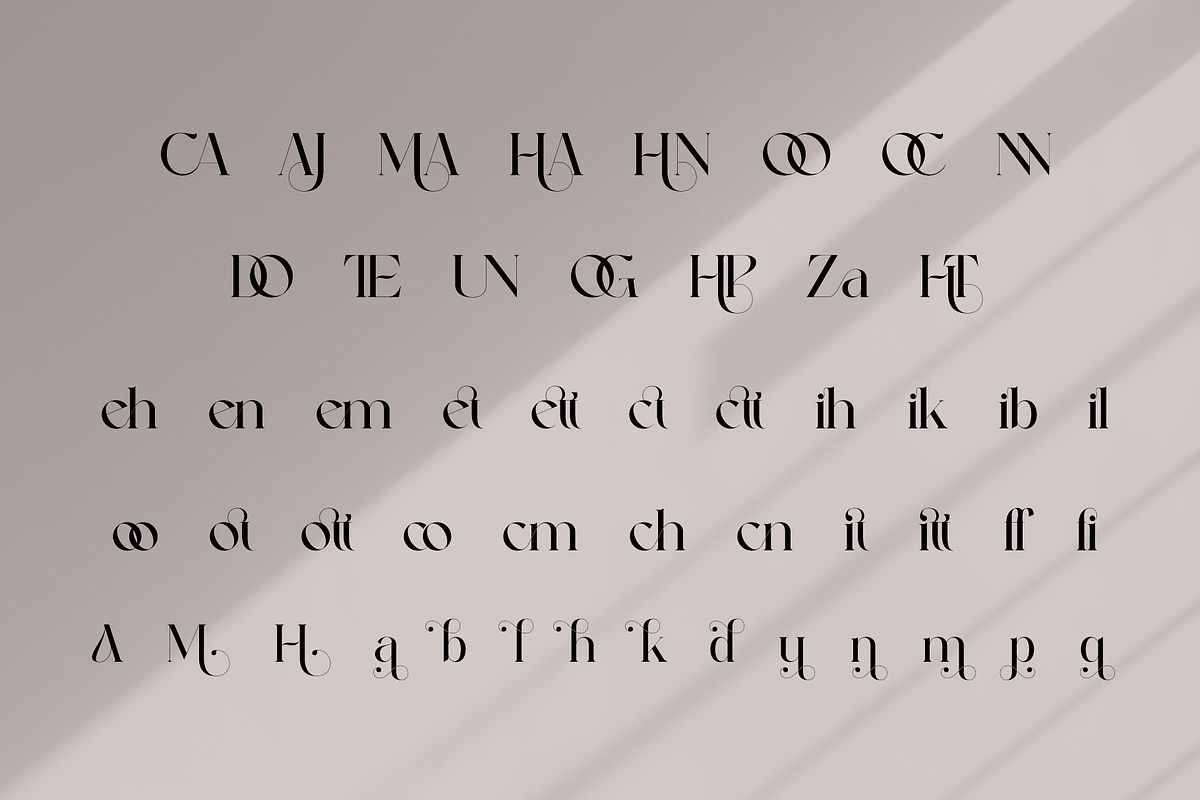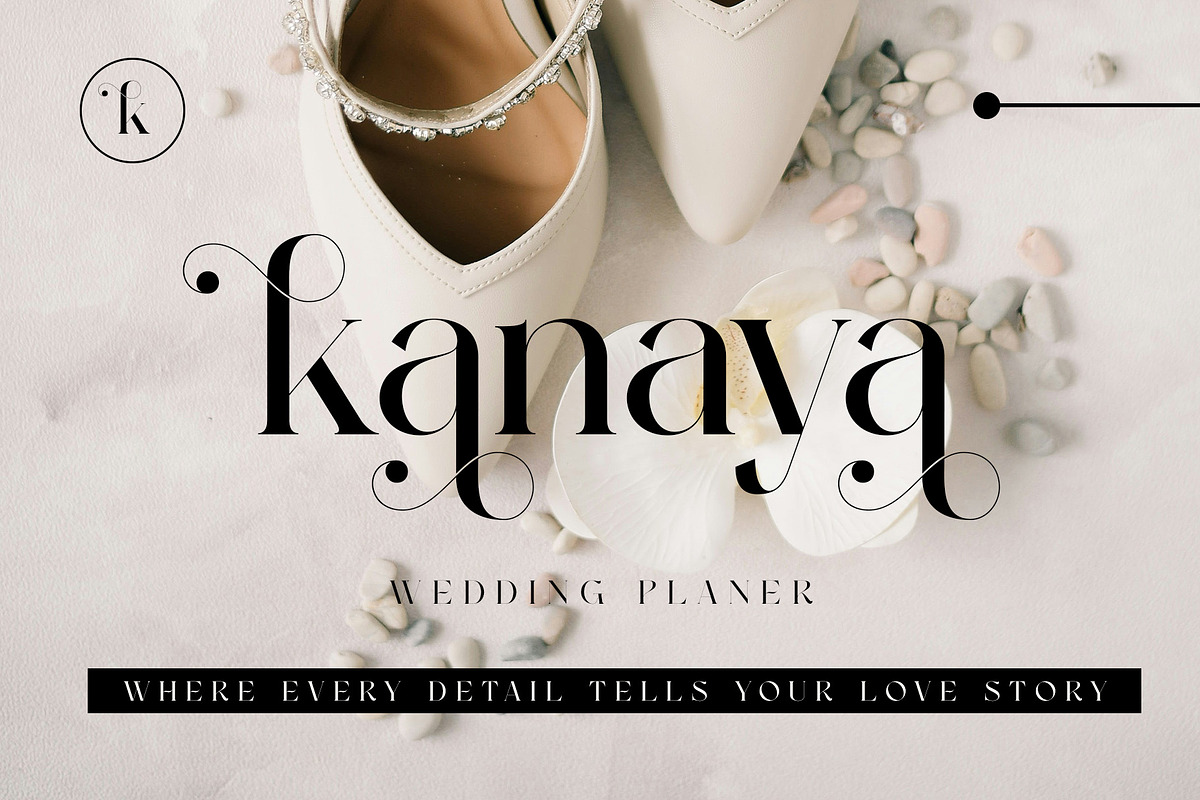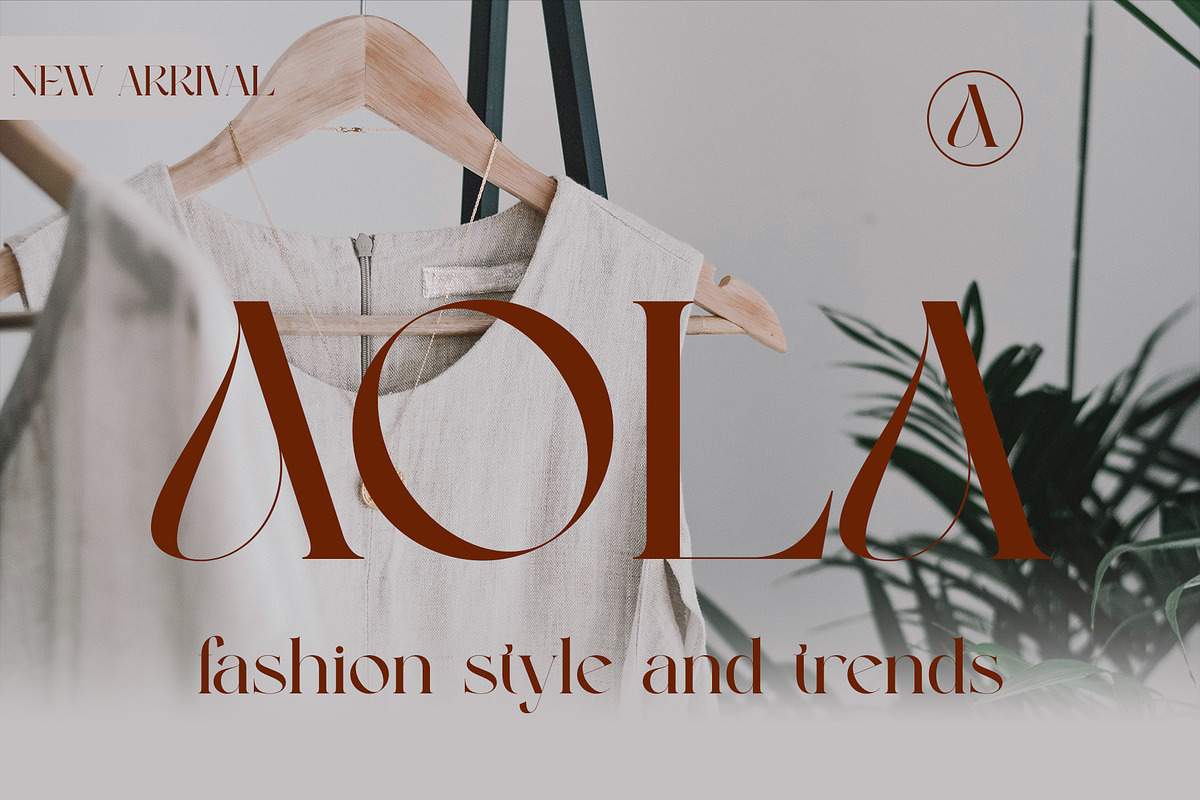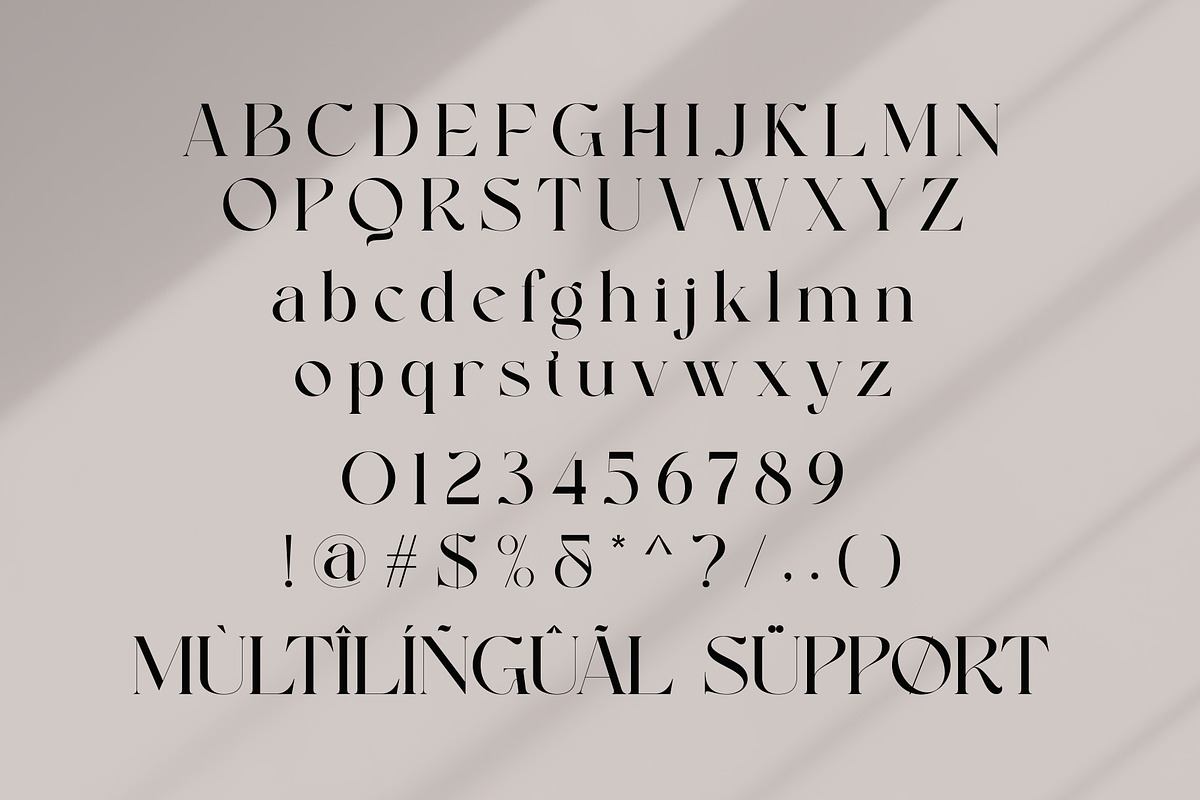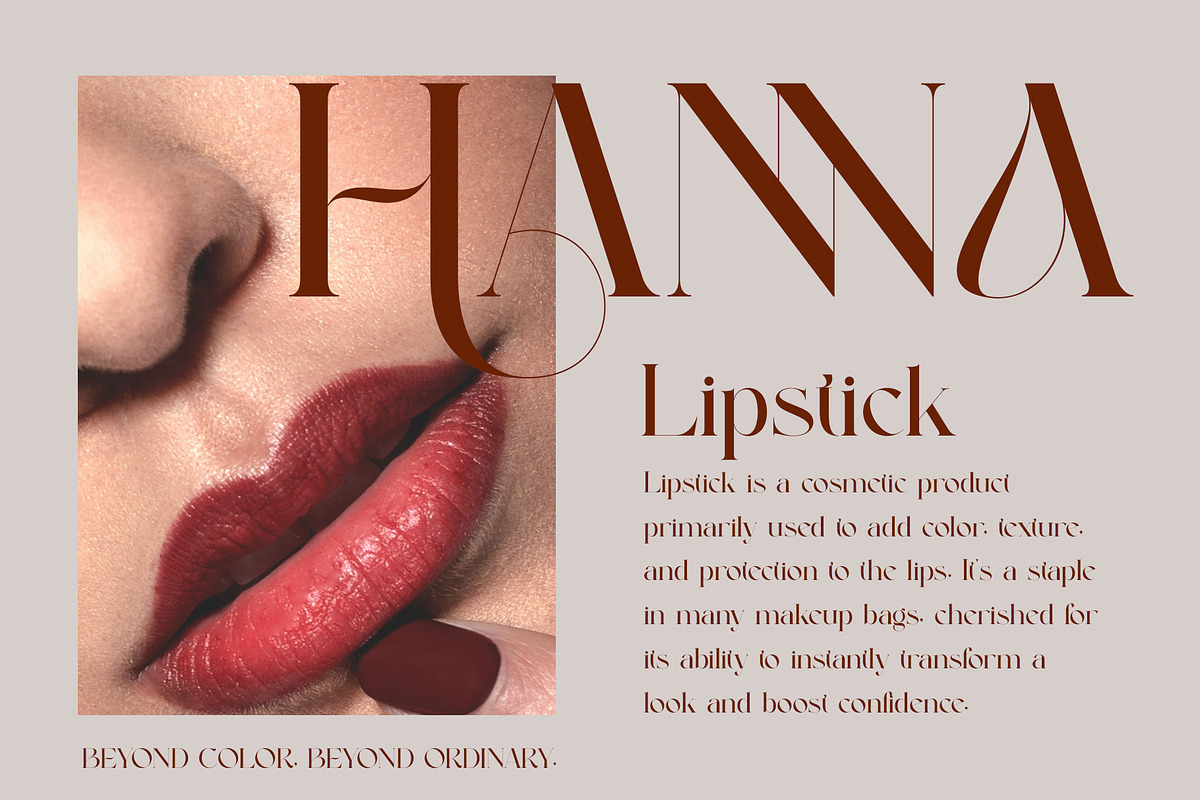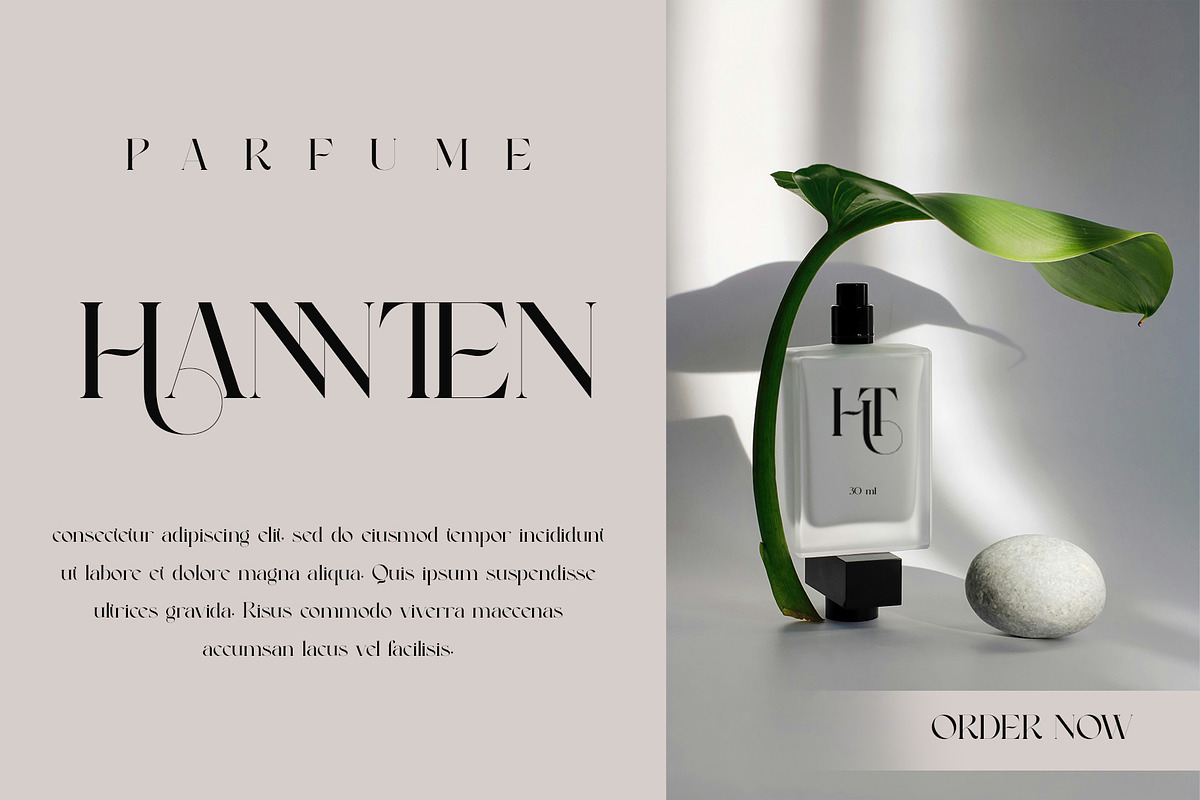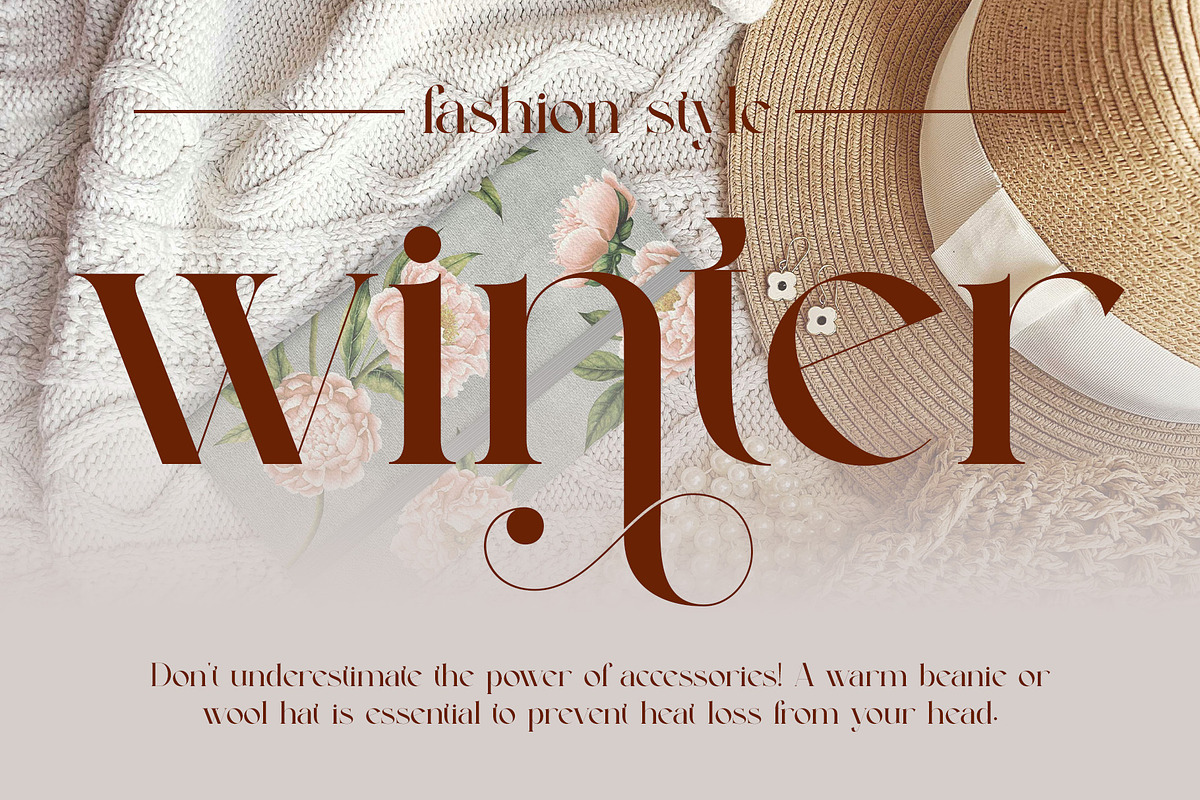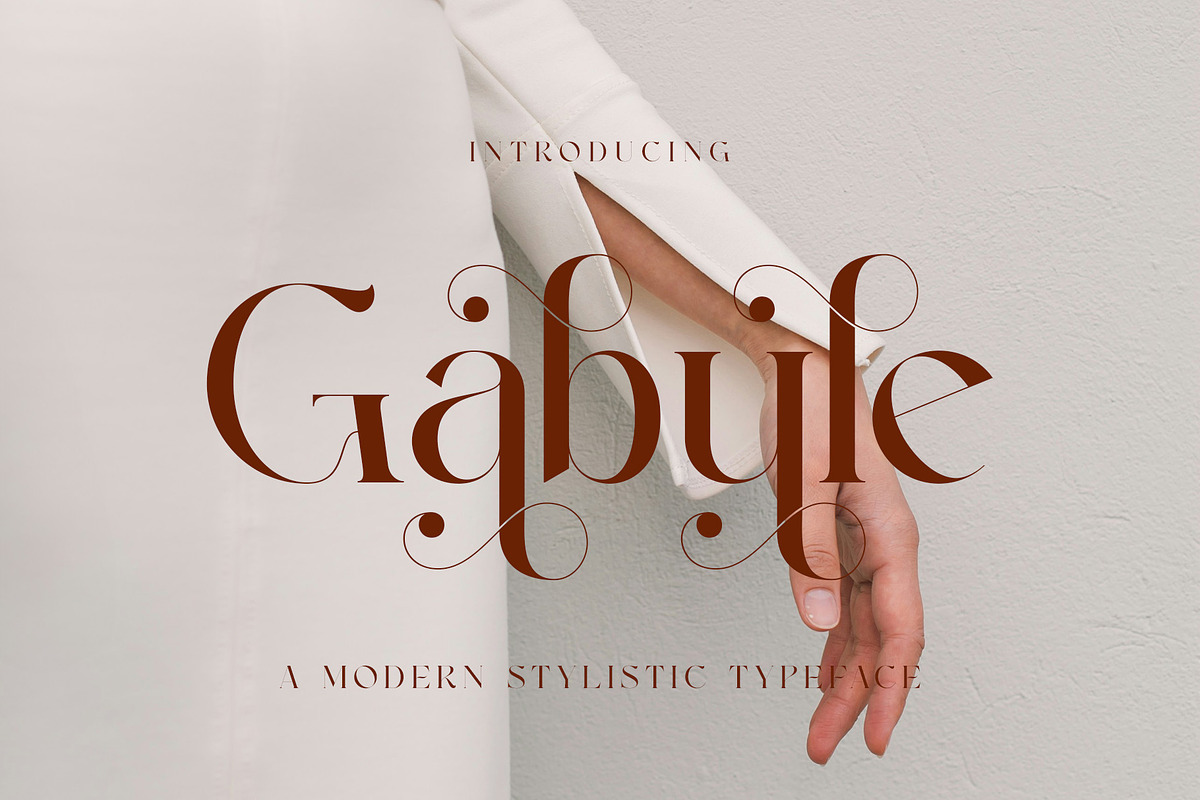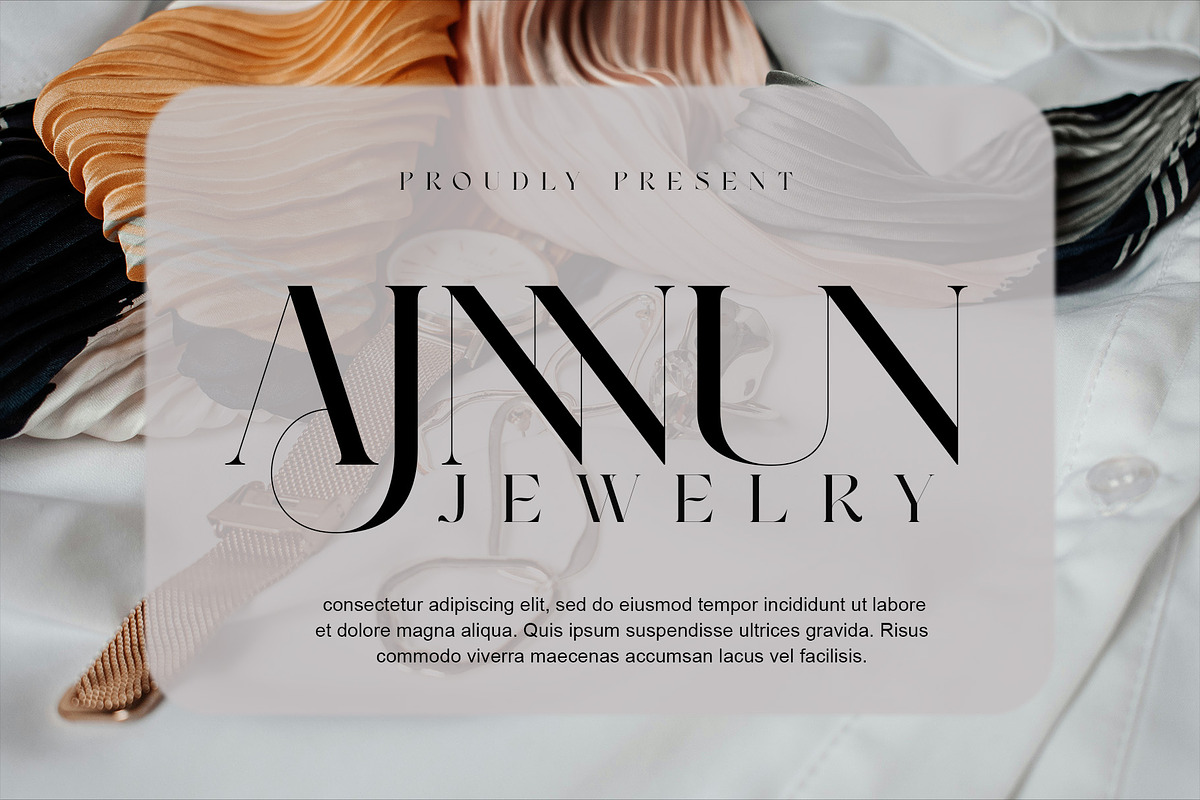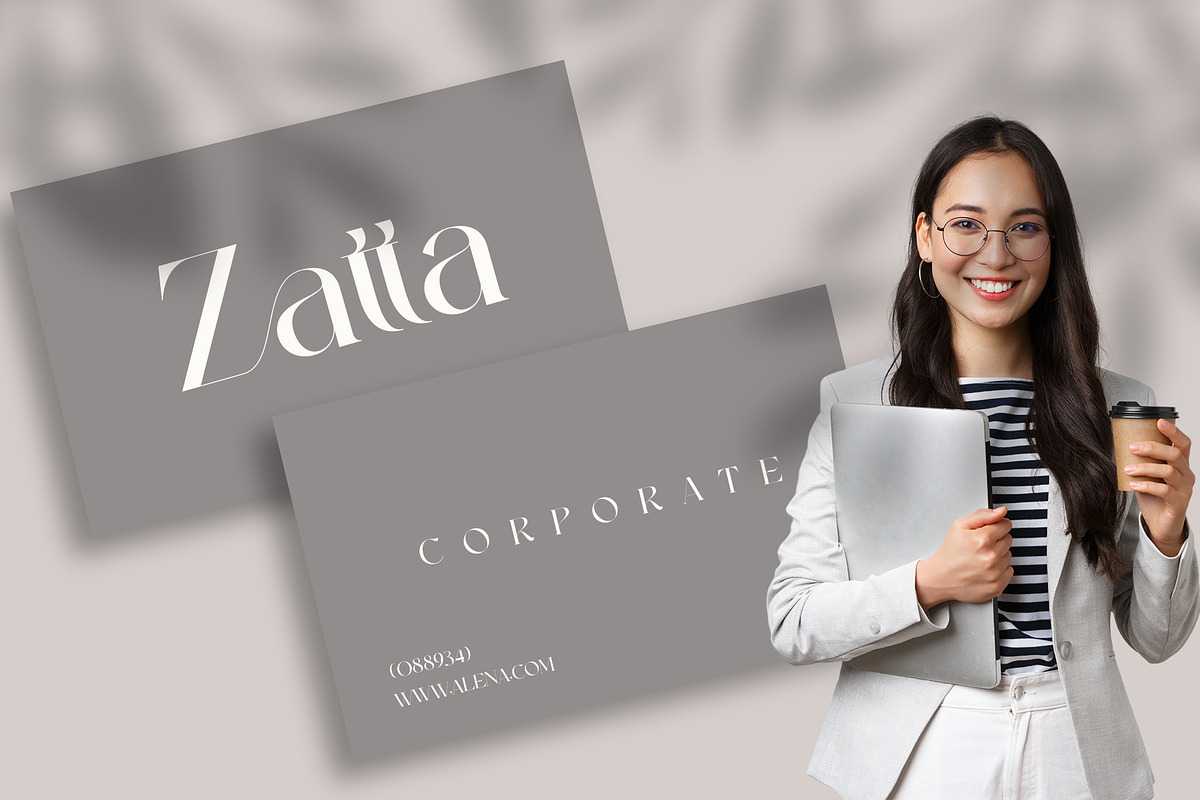
Gabule Modern Elegant Serif
Gabule is a sleek and stylish modern typeface that blends elegance with contemporary flair. Designed with smooth curves and sophisticated letterforms, Gabule brings a fresh yet timeless feel to any design it touches. Perfect for branding, fashion editorials, luxury packaging, social media graphics, and high-end logos.
This typeface offers a refined aesthetic with a hint of playfulness, making it versatile for both formal and creative projects. Whether you're creating a minimalist brand identity or an eye-catching headline, Gabule delivers a bold statement with elegance and style.
Elegant and fashionable design
Smooth, modern curves with a stylish edge
Ideal for logos, branding, titles, and invitations
Supports multiple languages